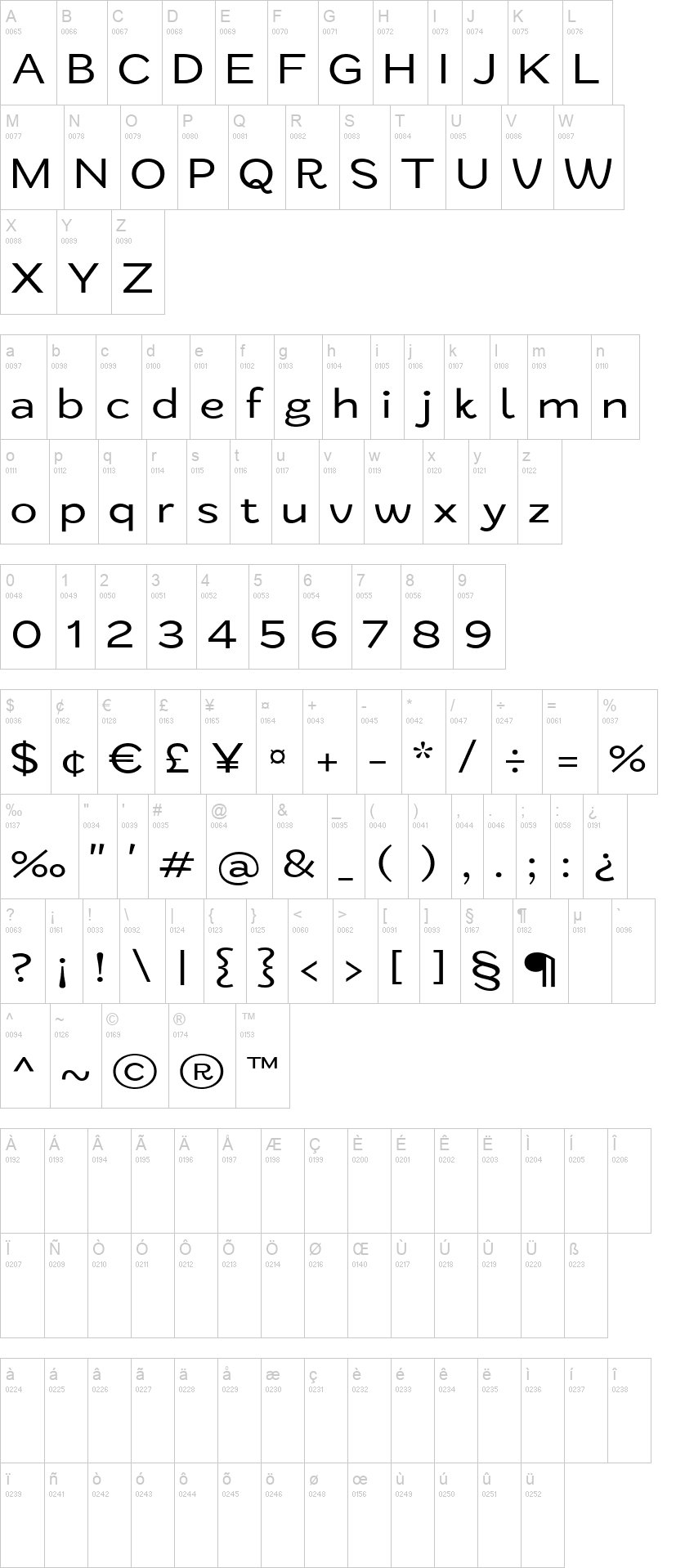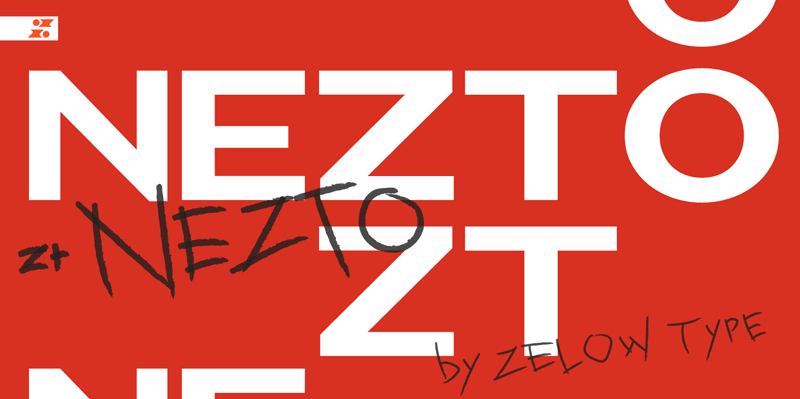
ZT Nezto is a new work that focuses on curved areas, bringing out an elegant and refined style. The emergence of this idea was due to the constraints when designing with W&V letters which were very difficult to combine with other letters, and also the desire to present new elements in the world of typography, thus making each design more unified between letters.